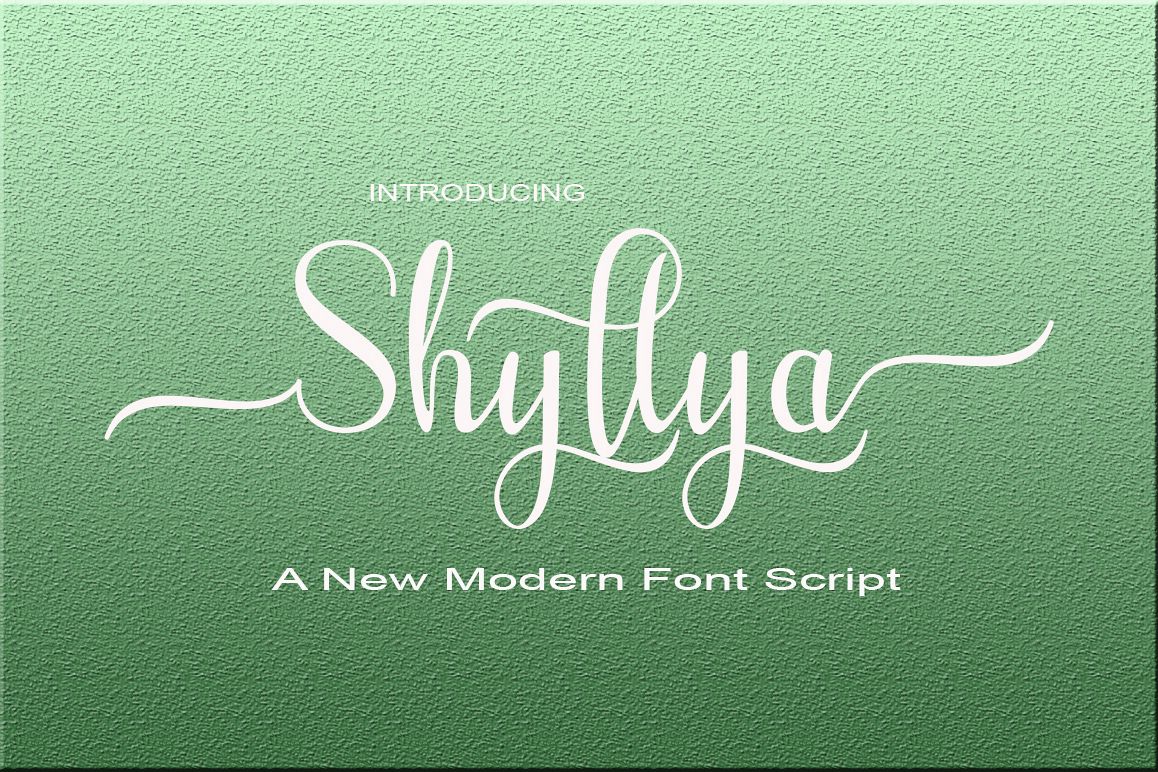
Shyllya Script
Shyllya-Regular
Shyllya is modern script font, every single letters have been carefully crafted to make your text looks beautiful. With modern script style this font will perfect for many different project ex: quotes, blog header, poster, wedding, branding, logo, fashion, apparel, letter, invitation, stationery, etc.